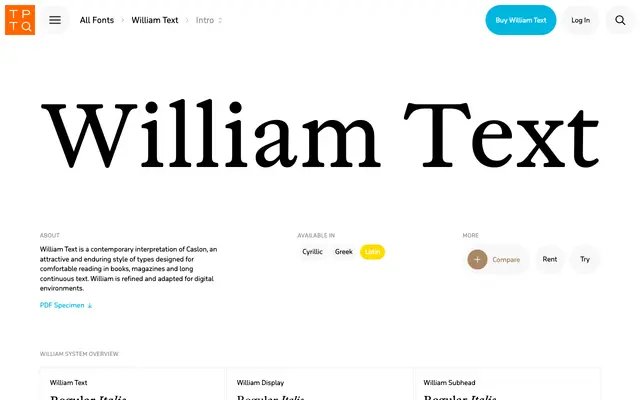
William Text specimen from Typotheque
A classical serif system from Typotheque, engineered across three optical sizes for text, subhead and display setting with a variable text cut included.
Part of the broader William system, the Text cut is optimised for continuous reading with careful optical adjustments that distinguish it from the Subhead and Display variants. The family runs to Regular and Bold weights each with italics, and an Ornaments set adds decorative support. A variable font version of the text cut extends its flexibility for digital environments.
William Text is a classical serif designed for extended text setting, part of a larger optical size system that includes Display and Subhead cuts, indicating a traditionally rooted, editorial serif with careful optical refinement across sizes.